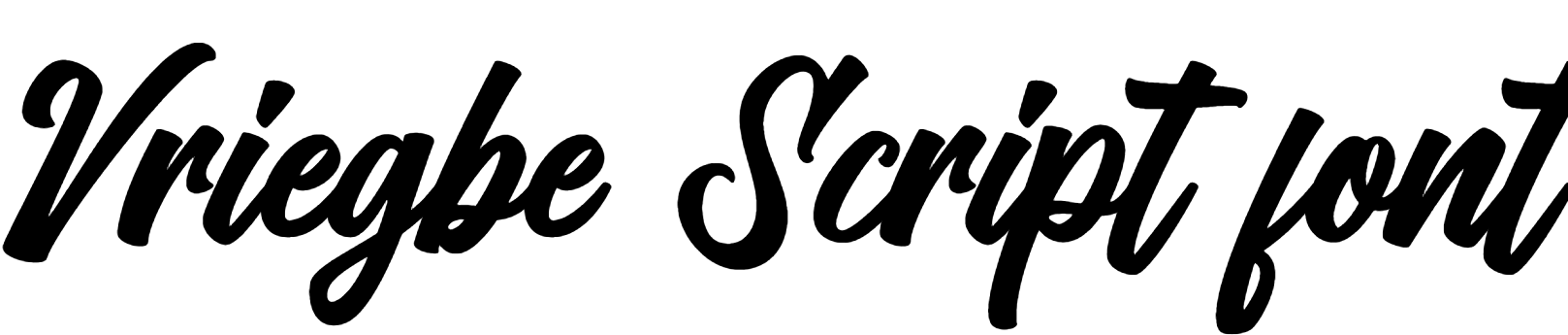
Vriegbe Script
Vriegbe Script is a handwritten font created by Tebaltipisstd_Ferdiansyah_TTS (2022). The letters have the small wobbles and personality of real handwriting, so your text feels warm instead of printed. You can download it for free and test it with your own words in the preview above.
- Designer: Tebaltipisstd_Ferdiansyah_TTS
- Glyphs: 374
- OpenType features: Ligatures and 11 stylistic sets
- Extra characters: 185 copy-and-paste alternates (Private Use Area)
What You Can Type With Vriegbe Script
With complete upper and lowercase letters and all ten digits, Vriegbe Script is ready for real wording, not just a single headline. Everyday marks like &, !, ? and @ are there too. Thanks to its accented letters, it also works for Spanish, French, Portuguese and Italian, not just English.
Where Vriegbe Script Works Best
Think of Vriegbe Script for greeting cards, journal pages and friendly social posts. Set it a bit larger than you would a normal text font. Handwriting styles lose their charm once they get too small to read comfortably.
Who designed Vriegbe Script font?
Vriegbe Script was designed by Tebaltipisstd_Ferdiansyah_TTS. The copyright line inside the font is dated 2022.
Does Vriegbe Script support accented letters?
Yes. Vriegbe Script includes the accented letters needed for Spanish, French, Portuguese and Italian, so it works for more than just English.